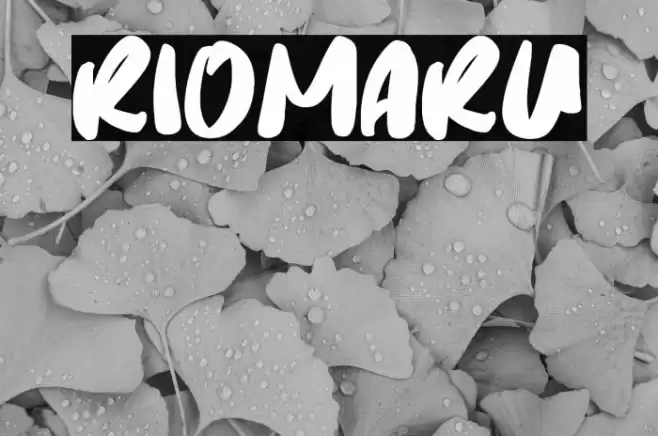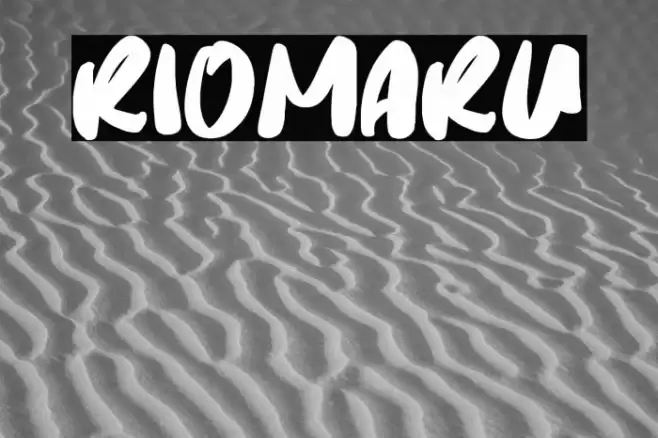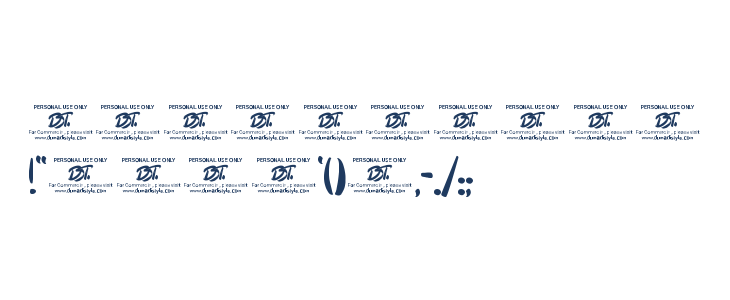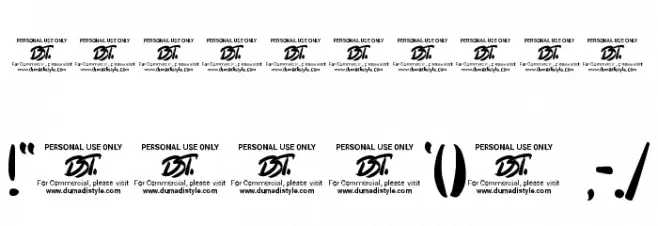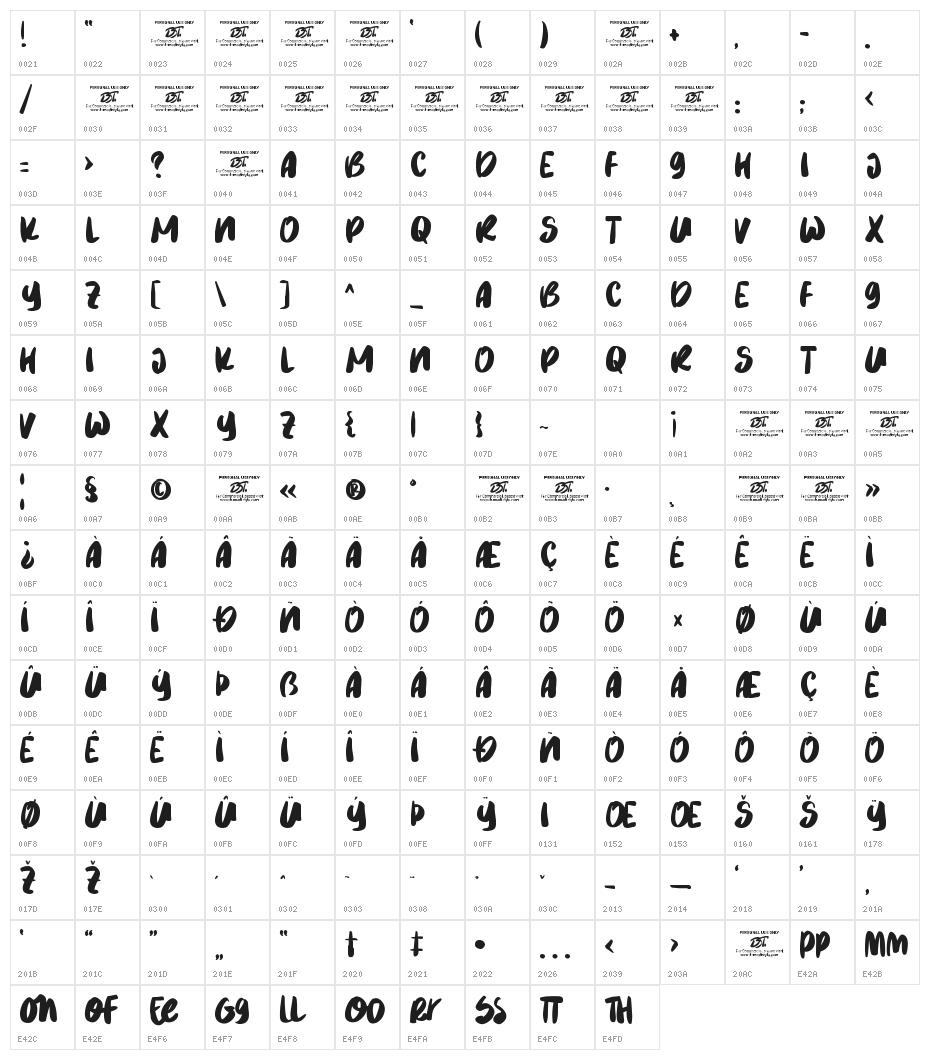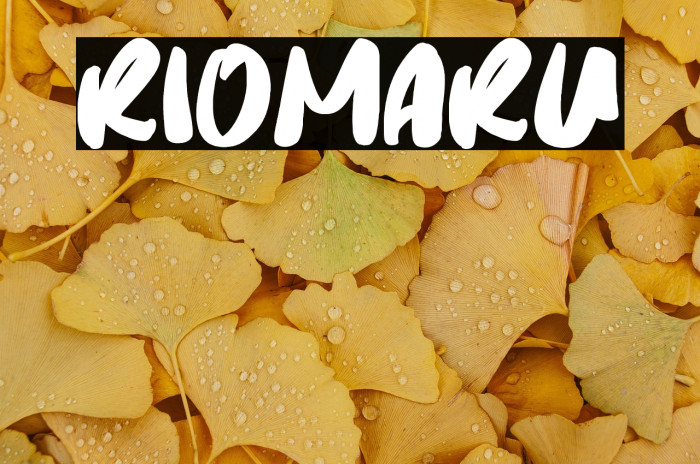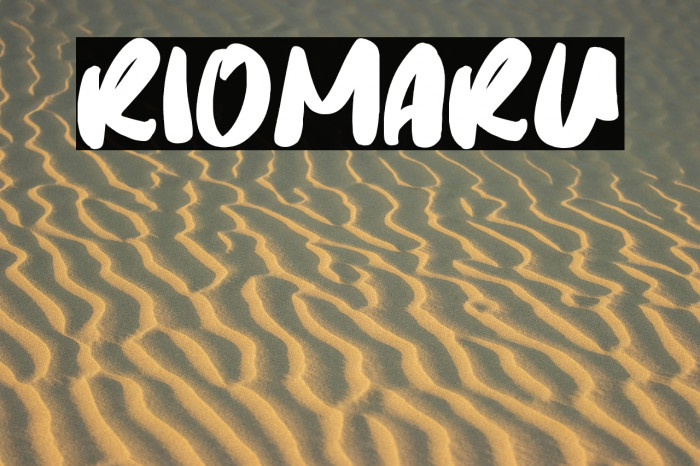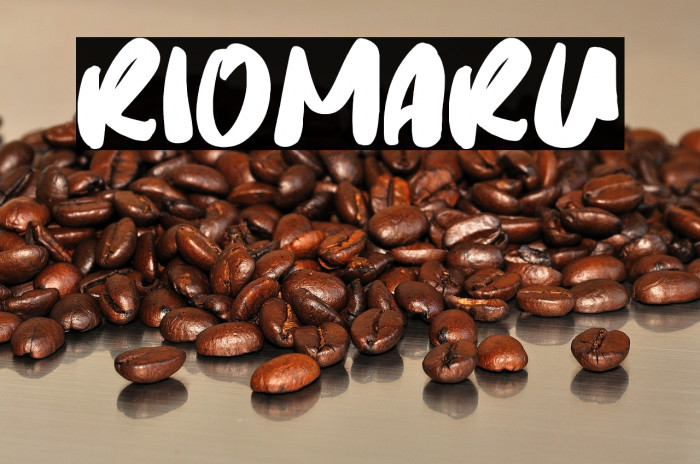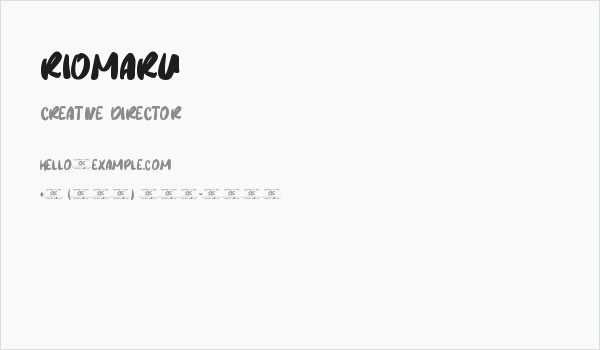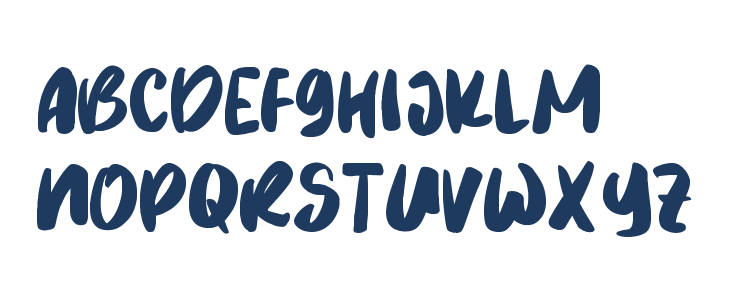
Riomaru Font
Riomaru Description
This font features a bold and expressive handwritten style, characterized by thick, rounded strokes that convey a sense of energy and playfulness. The letters are closely spaced, creating a compact and cohesive appearance. The uppercase and lowercase letters maintain a consistent style, with a slight slant that adds to the dynamic feel. The numbers and special characters are designed to match the overall aesthetic, ensuring uniformity across all elements. This font is ideal for projects that require a personal touch or a casual, friendly vibe.
A bold, playful handwritten font with rounded strokes and a dynamic slant from Uncategorized fonts.
- Proposed Projects: Ideal for greeting cards, playful branding, social media graphics, and children's book covers.
- Character Spacing: Tight
- Overall Style: Playful, Casual